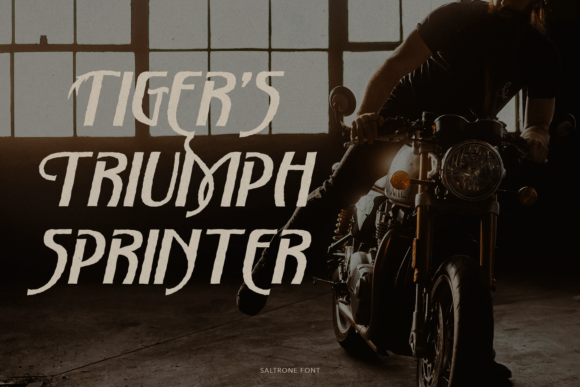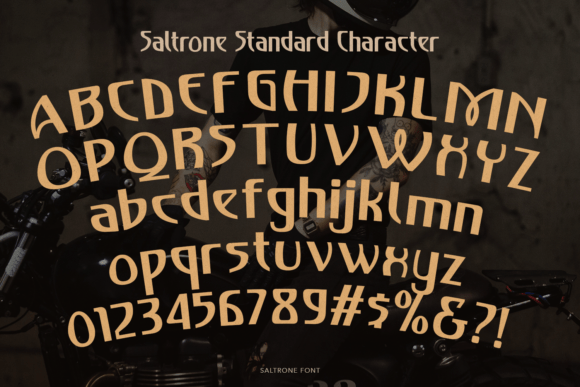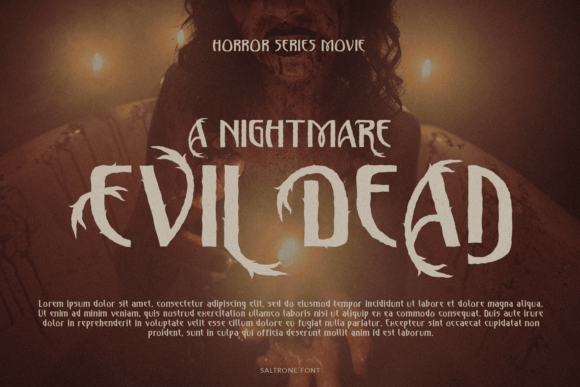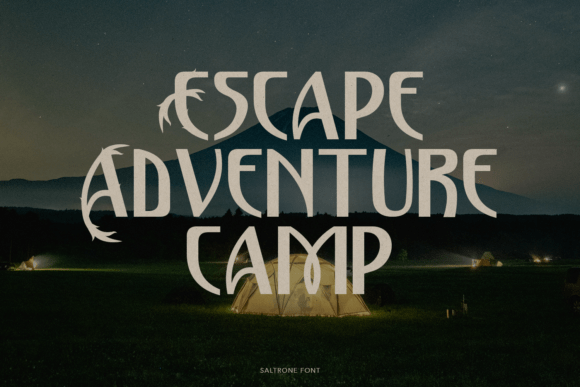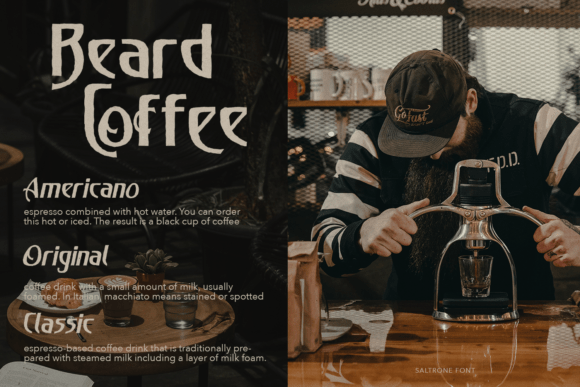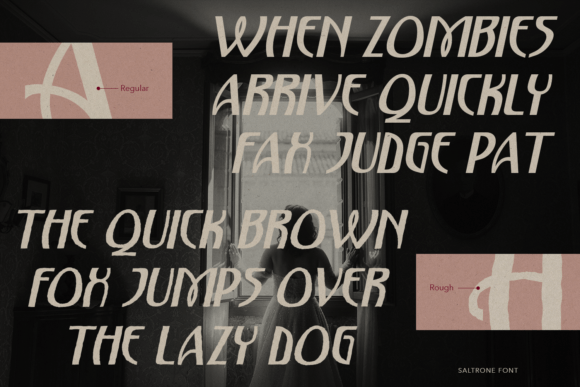
Introduction to Saltrone Font
Have you ever found yourself stuck in the middle of a creative project, struggling to convey the perfect message through typography? We’ve all been there – staring at a blank canvas, unsure of how to bring our vision to life. But what if we told you that the solution lies in a beautifully crafted font, designed to elevate your designs to new heights? Welcome to the world of Saltrone Font, a stunning display font that’s sure to revolutionize your creative process.
Saltrone Font is more than just a design resource – it’s a game-changer. With its single weight and legible, expressive shapes, this font is perfect for logos, branding, packaging, advertisements, and more. And with its stylish alternate characters and ligatures, you’ll have endless possibilities to experiment and push the boundaries of your design.
Key Features of Saltrone Font
- High-quality design resource ideal for creative projects, offering a unique and stylish aesthetic.
- Designed with a clean and modern look, suitable for a wide range of applications, from logos to digital interfaces.
- Perfect for designers seeking a versatile and elegant font to elevate their creative project.
Honest Review: Saltrone Font
I recently stumbled upon the Saltrone Font, a free download that caught my attention with its sleek and modern design. As a designer, I was excited to dive in and see what this font had to offer.
- What works well: ✨ The Saltrone Font is incredibly versatile, making it a great addition to any creative project. Its clean lines and high-quality design make it perfect for modern branding and web design.
While the Saltrone Font is a solid design resource, I do have a few criticisms. ⚠️ The font’s limited character set may be a drawback for designers who need a more extensive range of glyphs.
Overall, I’m impressed with the Saltrone Font’s high quality and versatility. It’s a great addition to any designer’s toolkit, and I’d definitely recommend it to anyone looking for a modern and sleek font for their next creative project.
The Saltrone Font is perfect for any creative project that requires a high-quality and modern design. Some common use cases include:
- Print and digital marketing materials
Alternatives to Saltrone Font
Open Sans is a popular sans-serif font suitable for a wide range of creative projects, including logos, websites, and print materials. It offers high quality and a clean design, making it an ideal choice for designers looking for a free download. When to use: Open Sans is perfect for headings, body text, and titles. It compares to Saltrone Font as it has a more neutral tone and is more versatile in its applications.
Montserrat is a modern sans-serif font with a geometric feel, ideal for design projects that require a bold and urban aesthetic. It features a transparent background and is available for free download. When to use: Montserrat is suitable for headings, titles, and body text in creative projects, especially those with a strong urban or industrial theme. It compares to Saltrone Font as it has a more dramatic and edgy feel, making it perfect for projects that require a bold statement.